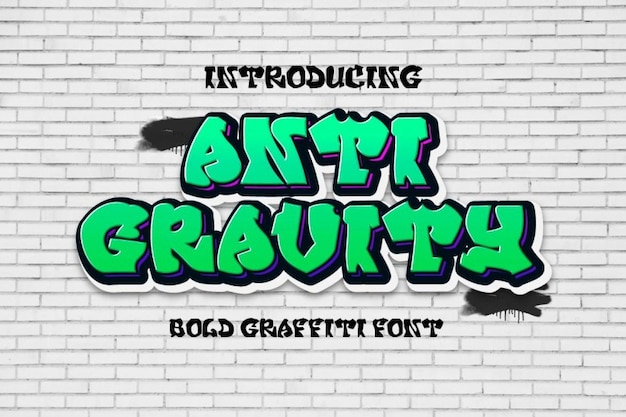
Antigravity Font
Antigravity is a bold graffiti font, perfect for backgrounds, flyers, and logos. Its design and colors have been thought to add a new style to your projects! Download it today and start having fun with Antigravity!